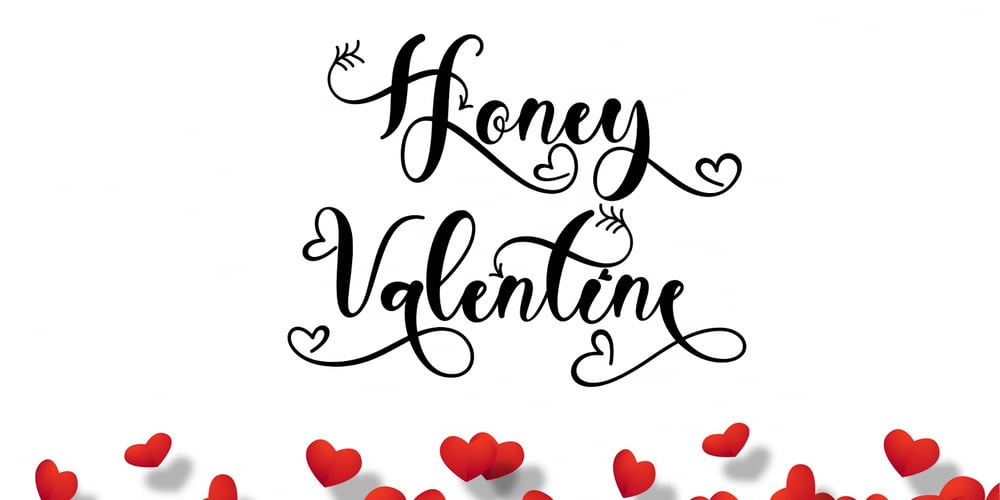
Honey Valentine Font Family was designed by Isroni Yoga Prasetya and published by Yoga Letter. Honey Valentine contains 1 styles and family package options. “Honey Valentine” is a modern handwritten font. This font can be used for all your work and needs, especially related to Valentine’s Day, wedding, winter, photography, engagement, promotions and more. This font is very easy to use because it has been specially designed, and there is also a guide for using letter decorations in the preview. This font comes with swashes, alternatives, basic characters, multilingual support, numbers, and punctuation.